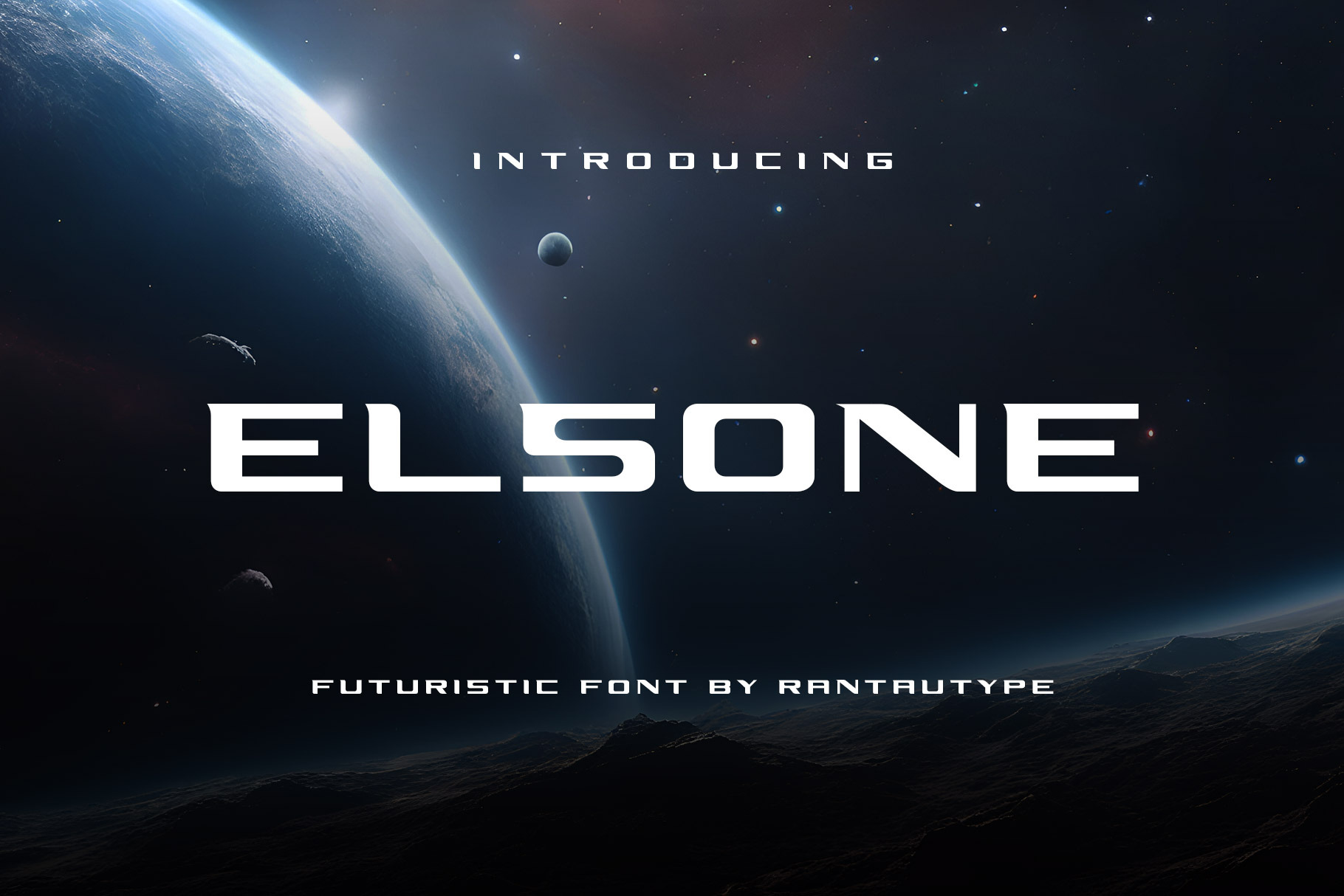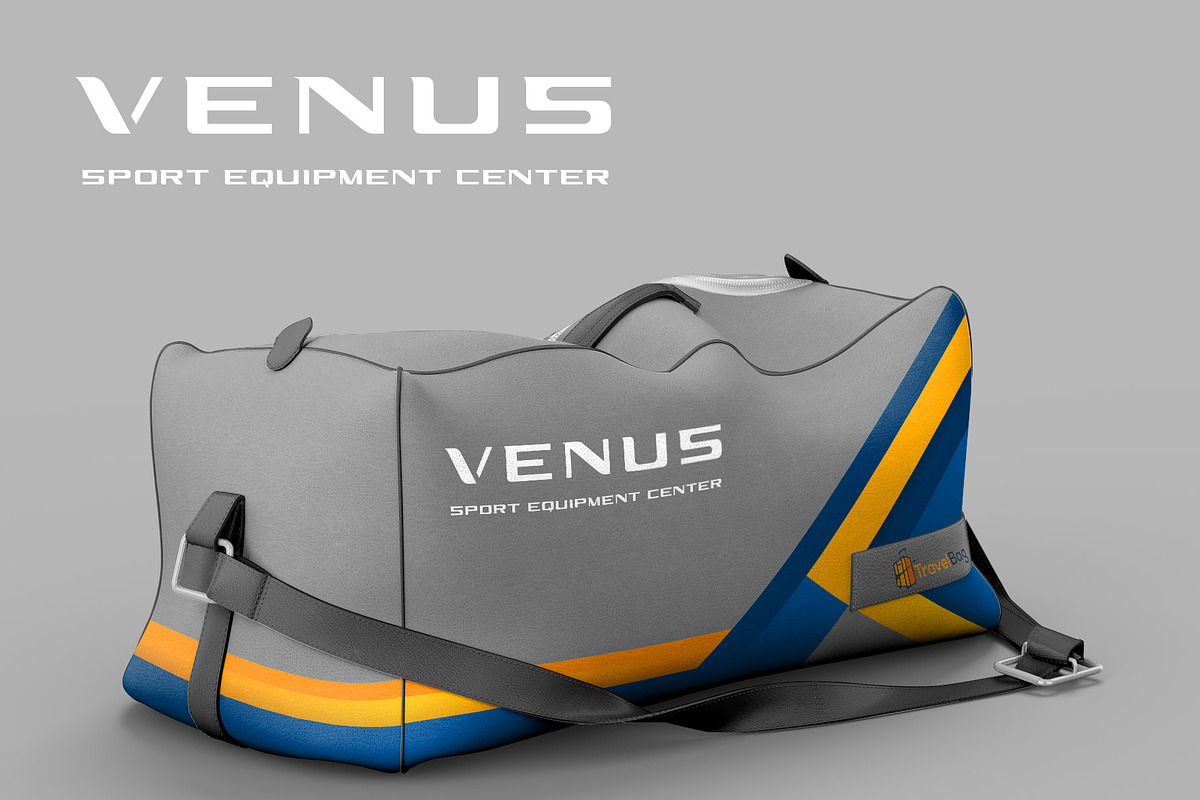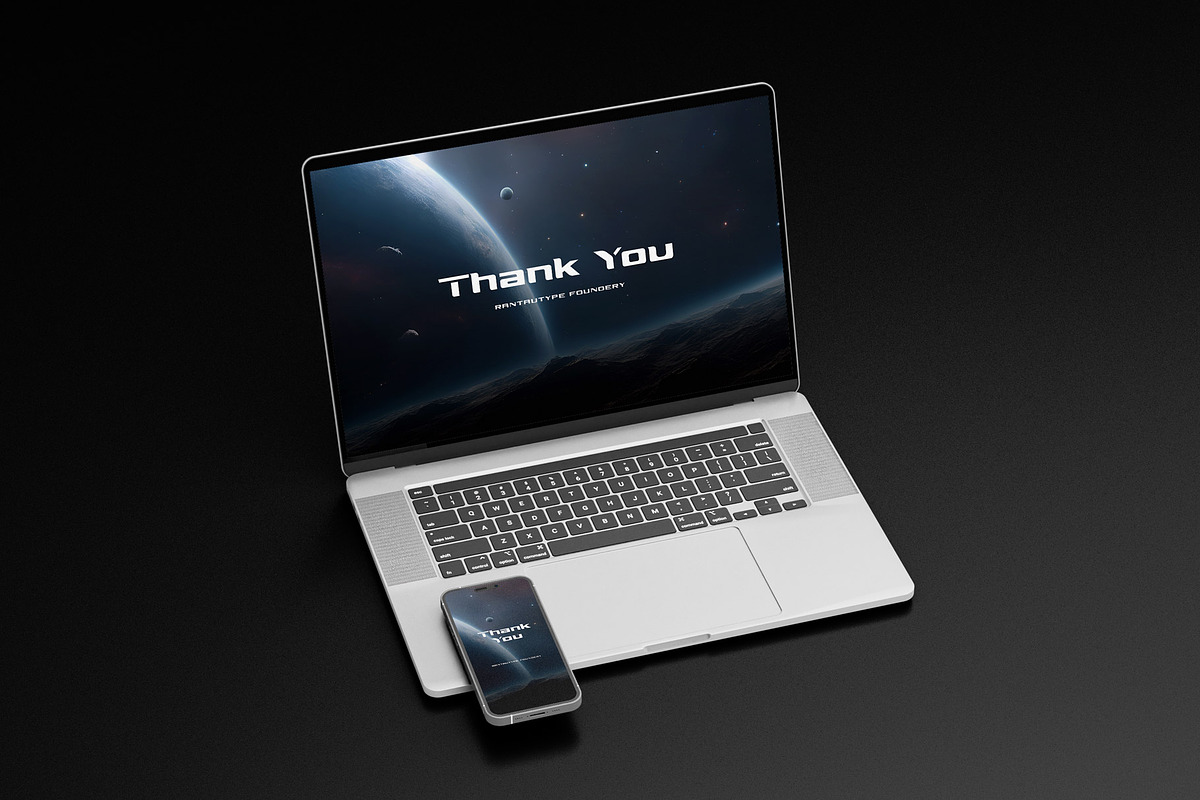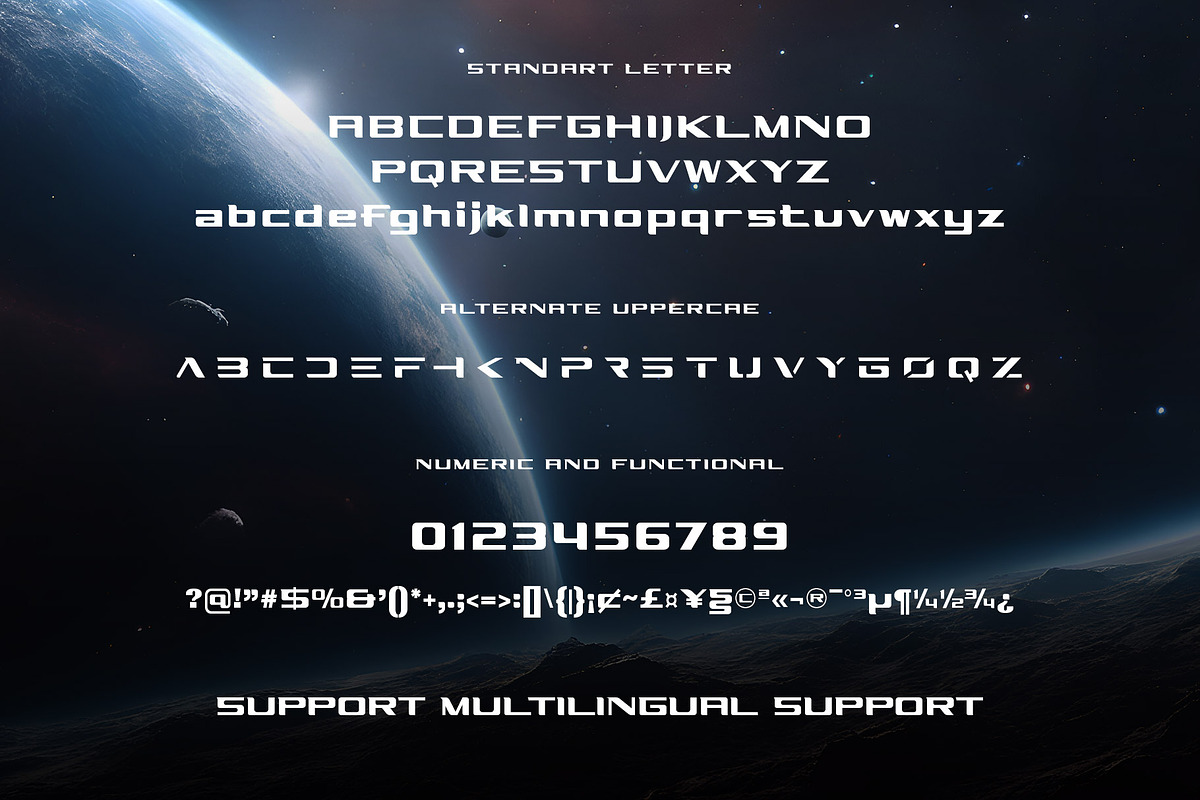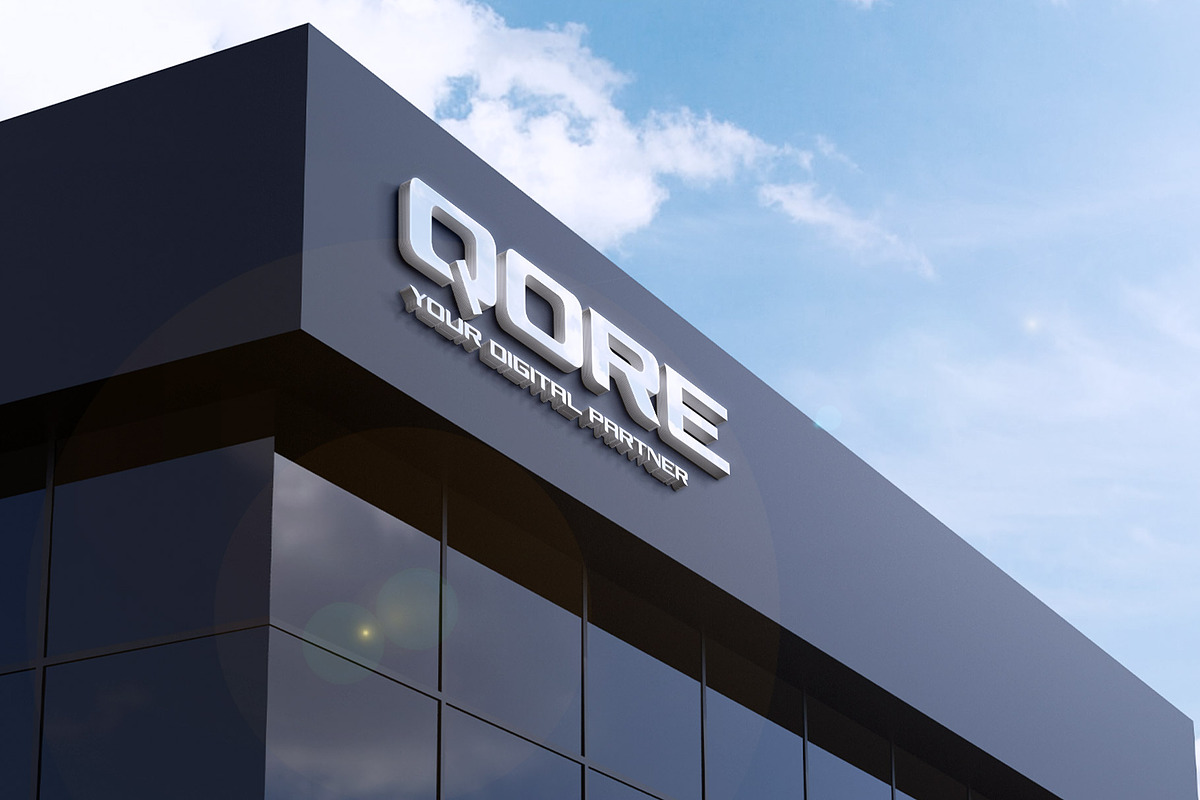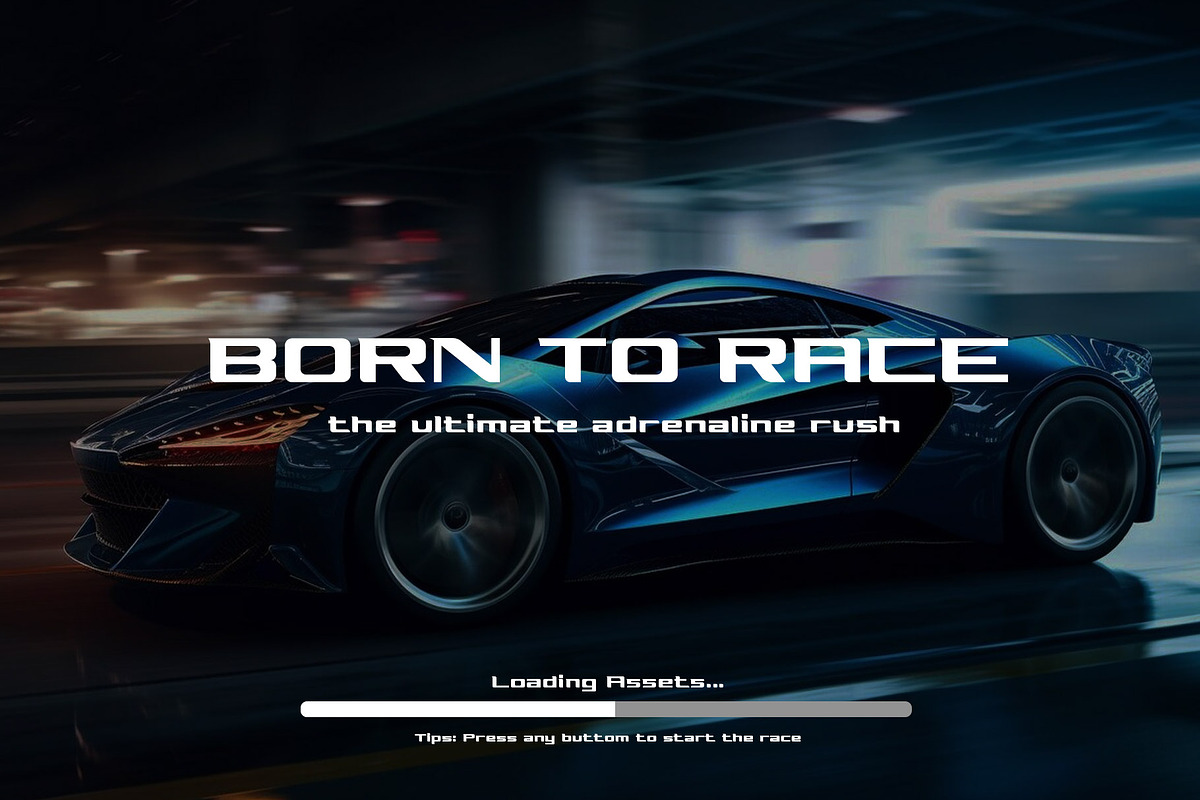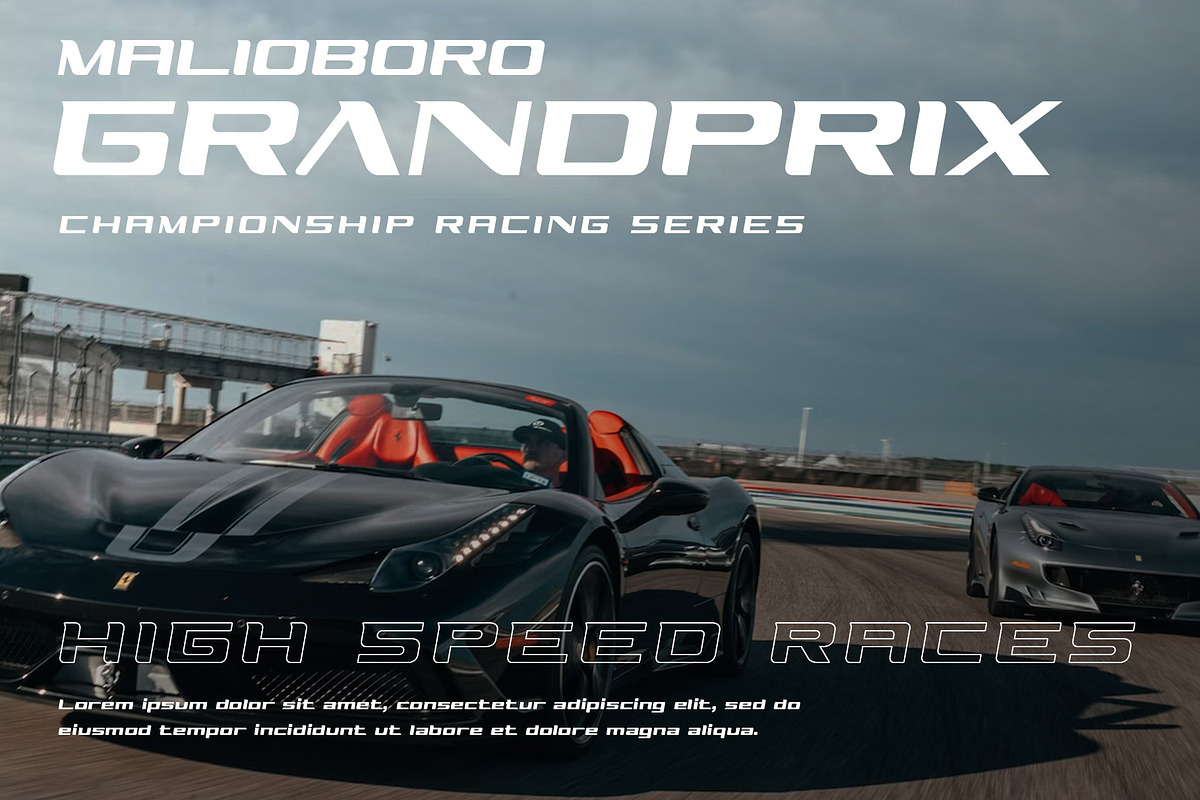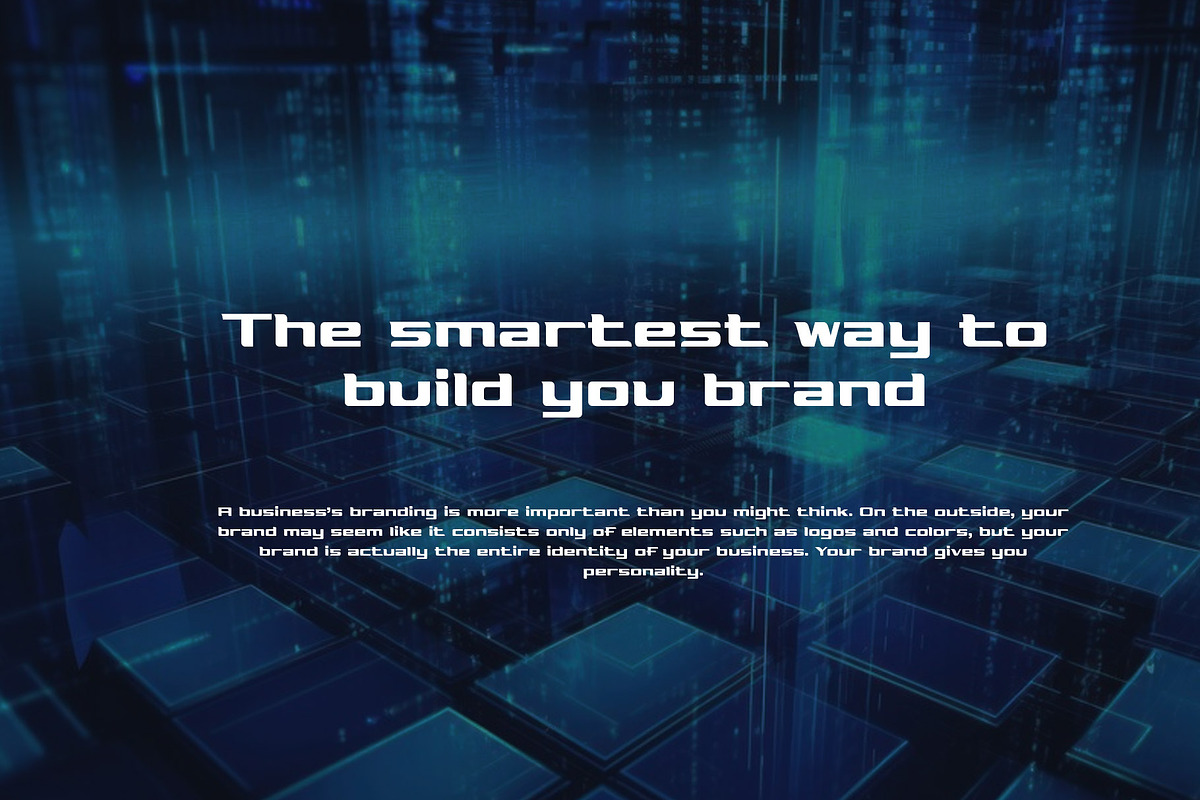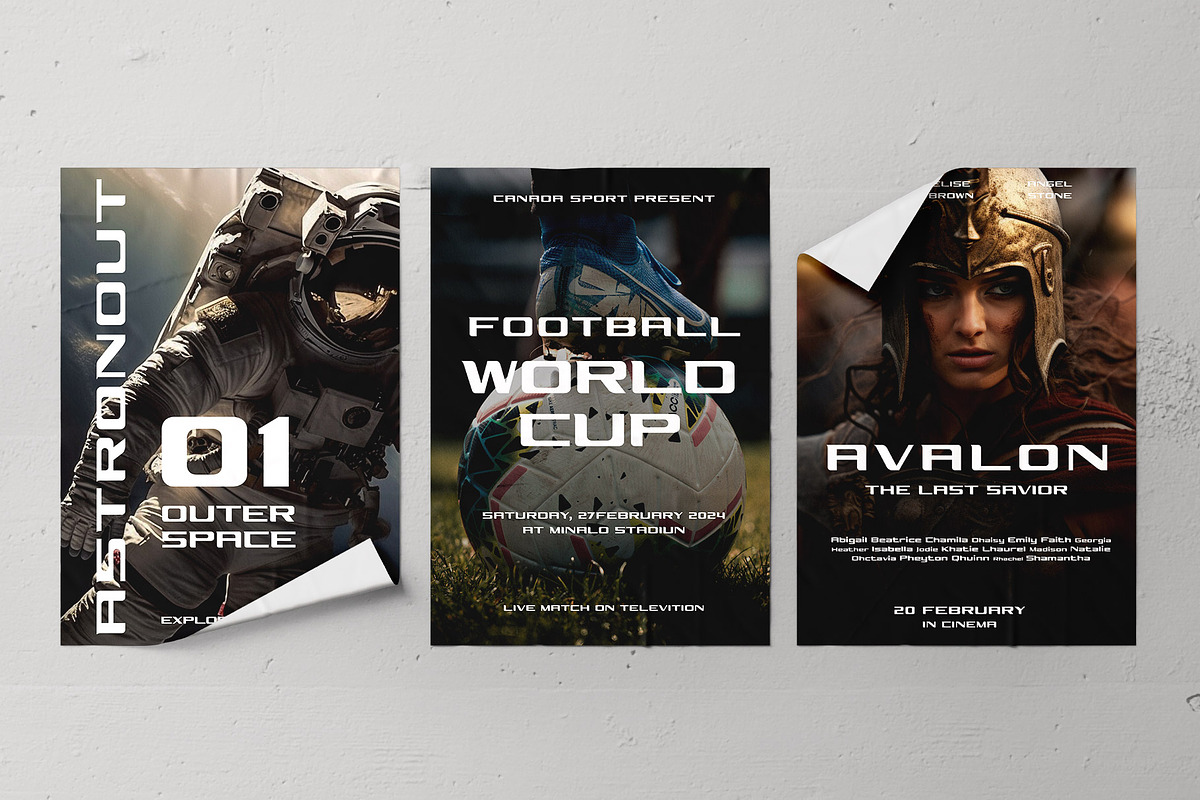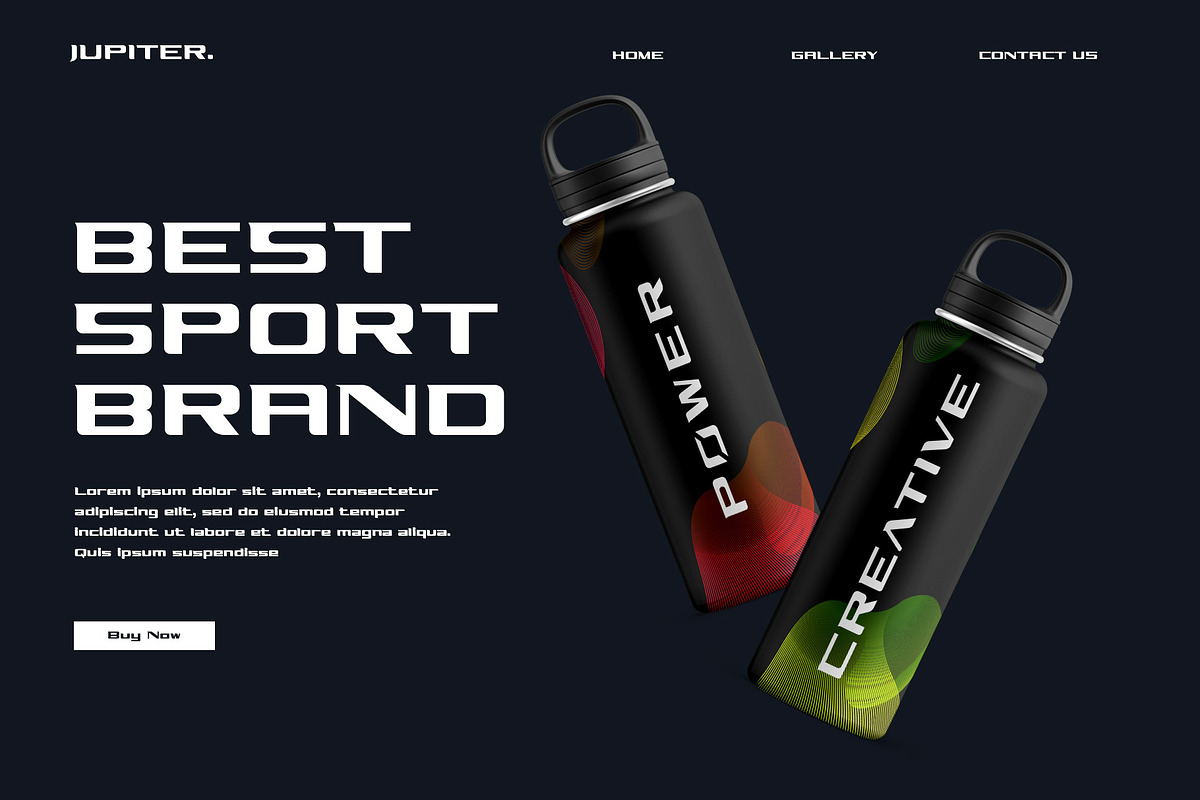
Elsone Futuristic Font
Experience modern in a futuristic visual form for your design with the elsone font. Inspired by the science fiction movies and futuristic digital concept. Strong and eye catch look is the main style for this typeface also outline style give more modern and elegant look. Unique alternate give more value for this typeface to stand out. Elsone come with ligature, alternate and mulilingual support.
Perfectly suitable for any creative endeavor, business project, corporate project, sports brand, logo, business card, games, posters, film/movie, packaging, events, advertising, digital futuristic concept and more. Now you can use Elsone to elevate you design.